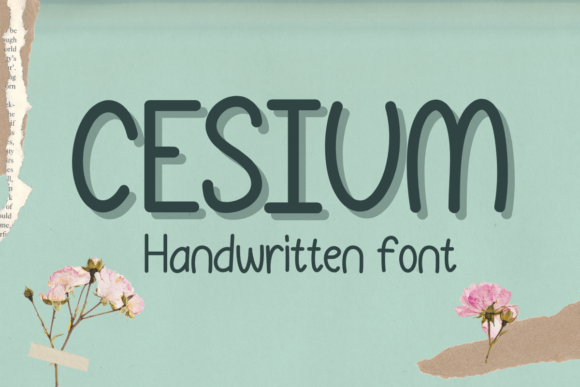
In a world brimming with digital monotony, where fonts often blend into a sea of sameness, emerges Cesium Font, a script font that dances across screens like a breath of fresh air. Created by the talented Sirinart, Cesium isn't just a font; it's an artistic expression, a window into a world of creativity and charm.
At first glance, Cesium captivates with its elegant strokes, meticulously crafted to emulate the gentle flow of a handwritten note. Each letter dances across the screen, carrying with it a sense of intimacy and warmth. Whether you're jotting down quick notes, pouring your heart out in a diary, or designing heartfelt greeting cards, Cesium becomes your trusted companion, adding a touch of personal charm to every word.
But Cesium's allure extends far beyond the realm of personal expression. Its versatility knows no bounds, making it a font chameleon that adapts effortlessly to a myriad of design endeavors. Envision your designs taking flight with Cesium's graceful curves, adding a touch of sophistication to your banners, breathing life into your written content, and transforming ordinary mugs, cards, and shirts into captivating works of art.
In the realm of social media, where engagement is paramount, Cesium shines as a beacon of originality. Its unique style adds a layer of depth and character to your posts, captivating audiences with its distinctive charm. Whether you're crafting eye-catching quotes, sharing heartfelt messages, or promoting your brand, Cesium ensures your words leave an indelible mark, resonating with your audience on a deeper level.
And let's not forget about the world of physical stationery. With Cesium, your handwritten notes transform into treasured mementos, each letter imbued with a sense of individuality and grace. Imagine your diary adorned with Cesium's elegant script, becoming a cherished repository of your thoughts, dreams, and aspirations.
With Cesium Font, the possibilities are endless. It's a font that empowers you to express your creativity, to connect with your audience, and to leave a lasting impression in a world clamoring for authenticity. Its timeless beauty and versatility make it a must-have for any designer, blogger, or creative entrepreneur seeking to elevate their work to new heights.